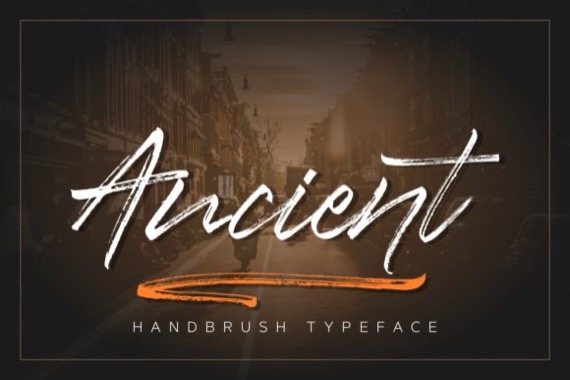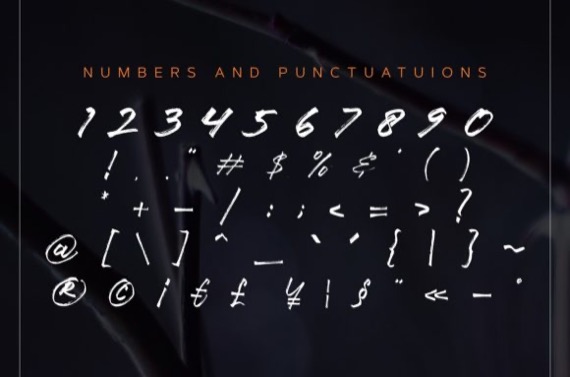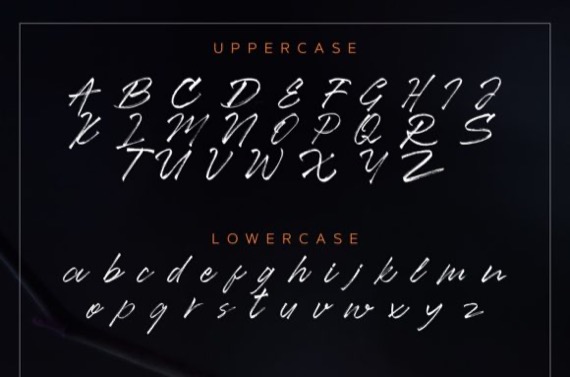
Ancient is a fun and bold handwritten font that was created and shared by Asd Studio with a cool vibe. It will add an authentic touch to any craft idea!
Ancient Brush Handwritten Font